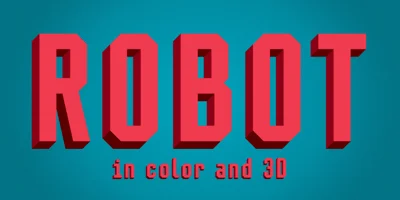
Mr Robot Font
Mr Robot Font is perfect for cybersecurity company branding, hacker-themed movie titles, tech thriller book covers, cyberpunk event graphics, digital forensics presentations, coding bootcamp materials, blockchain conference signage, surveillance tech marketing, dark web documentaries, and any cutting-edge project that explores the shadowy intersection of technology and society.
What makes Mr Robot Font exciting is its precise digital aesthetic that captures the clinical perfection of code execution and the cold beauty of systematic logic. This typeface embodies the antisocial genius of digital underground culture with monospaced letterforms that suggest terminal windows, encrypted communications, and the stark reality of digital surveillance. The font's technical character makes it perfect for brands and projects that want to communicate expertise, precision, and the uncompromising truth of technological systems.
The Mr Robot Font family includes multiple weights and digital variations, featuring regular, bold, and glitch-inspired versions along with coding symbols, terminal elements, and alternate characters that simulate system outputs. This comprehensive collection allows designers to create authentic digital typography that maintains the font's signature systematic character while providing flexibility for various tech-focused design applications and cybersecurity storytelling needs.
When exploring authentic hacker typography, Mr Robot Font represents an exceptional opportunity to work with a typeface that genuinely captures the spirit of digital resistance and technological expertise. This font demonstrates innovative design thinking by embracing the utilitarian beauty of programming interfaces and system terminals, creating letterforms that feel genuinely generated by computer systems rather than traditional design processes.
Professional designers appreciate Mr Robot Font for its ability to instantly establish technological credibility and digital authority across various media platforms. The font's systematic character makes it particularly effective for cybersecurity firms, tech education platforms, and digital forensics companies seeking to communicate competence and reliability to audiences who understand the critical importance of digital security.
The contemporary appeal of Mr Robot Font lies in its perfect representation of our complex relationship with technology and digital privacy in an increasingly connected world. This typeface serves as a visual reminder of the power and responsibility that comes with technological knowledge, making it an excellent choice for projects exploring themes of digital ethics and cyber warfare.
For creative professionals working with technology and security-focused brands, Mr Robot Font represents the ultimate typography solution for projects that need to convey technical expertise, digital precision, and the stark reality of our technological landscape, ensuring every application reflects the systematic excellence of professional cybersecurity standards.